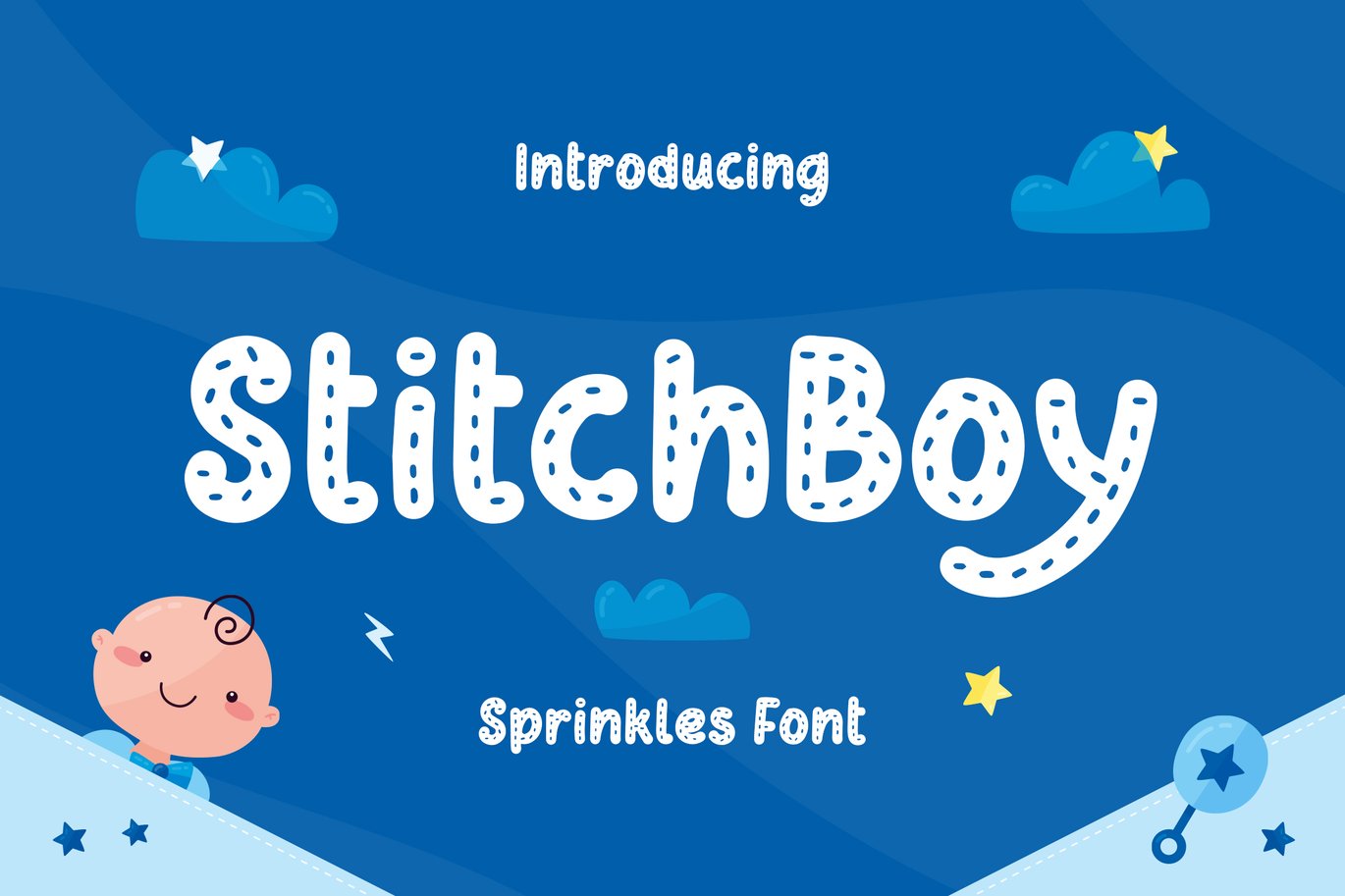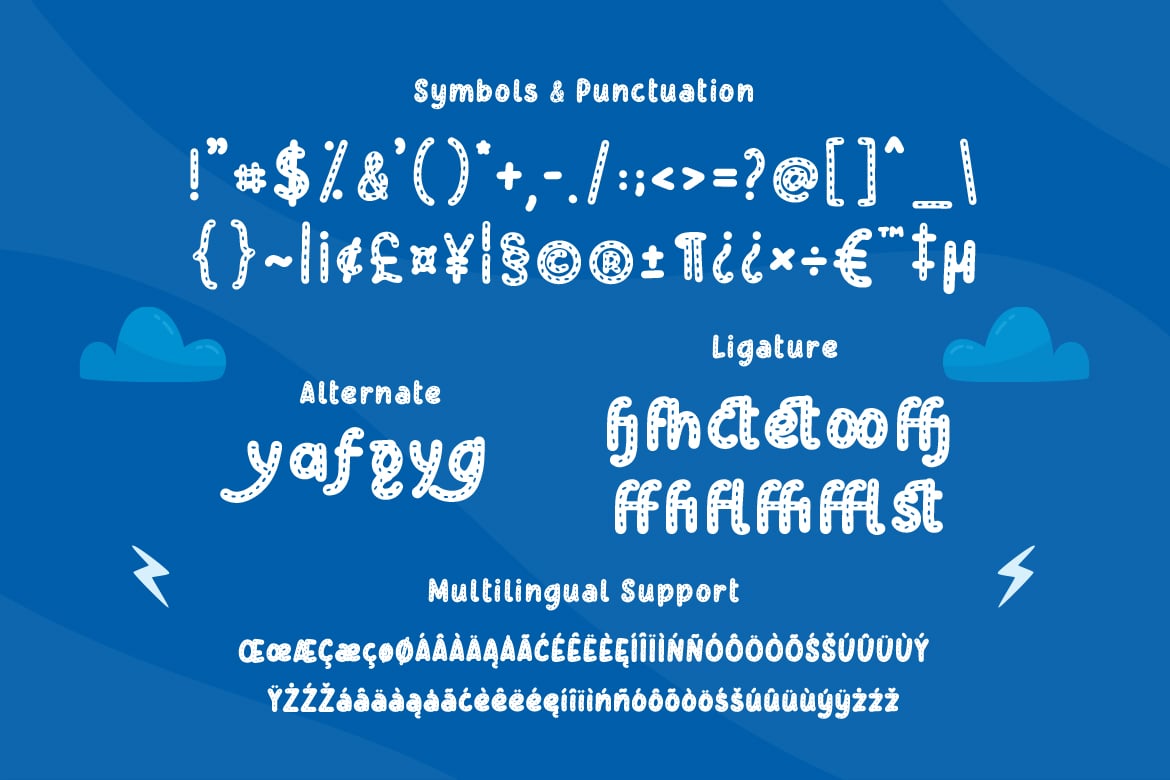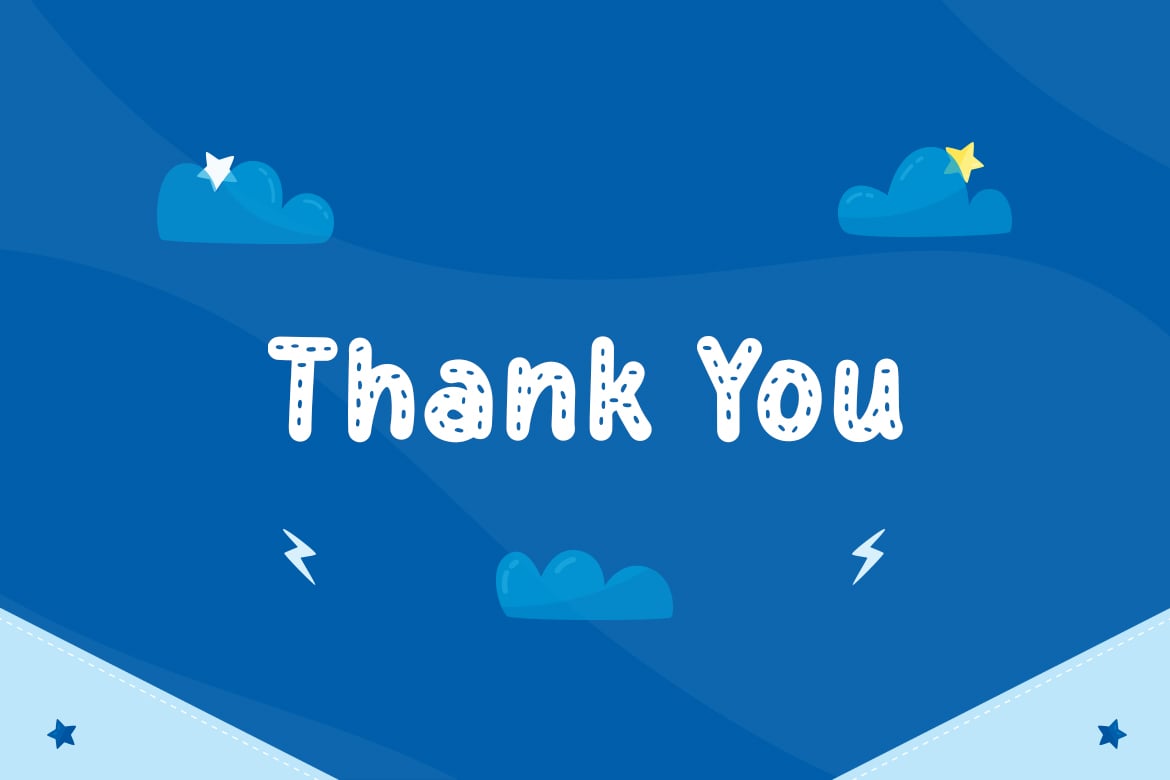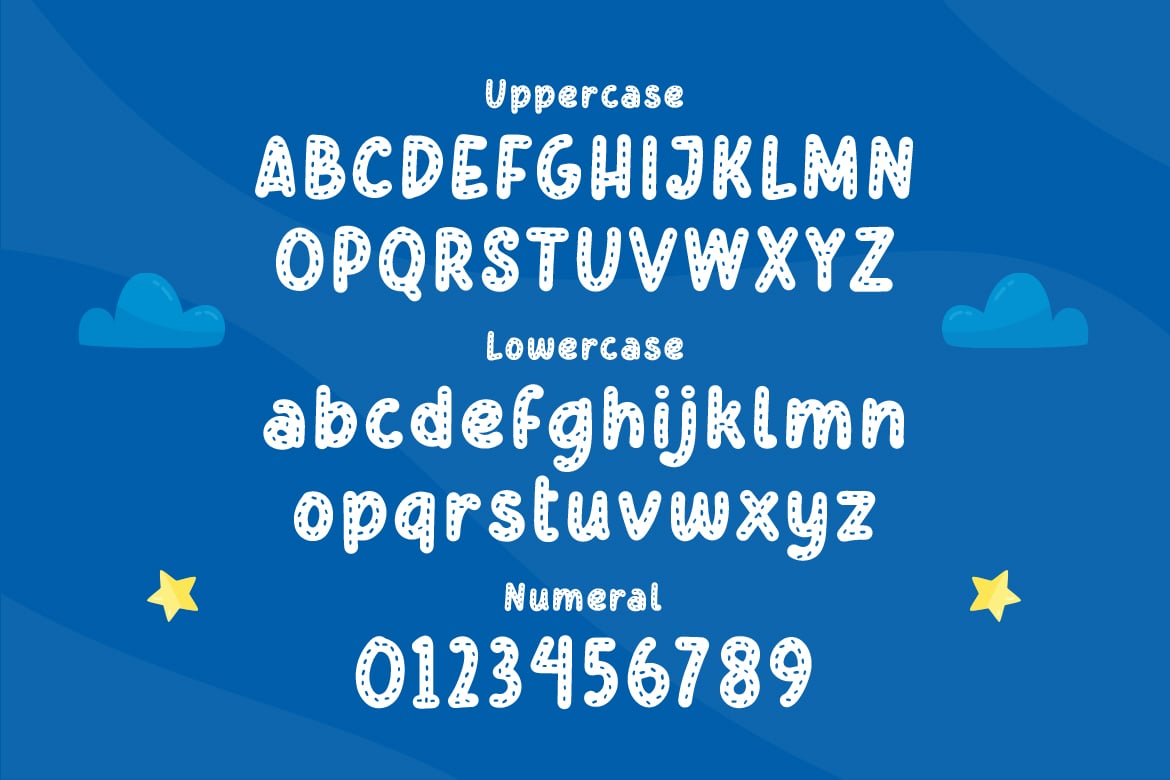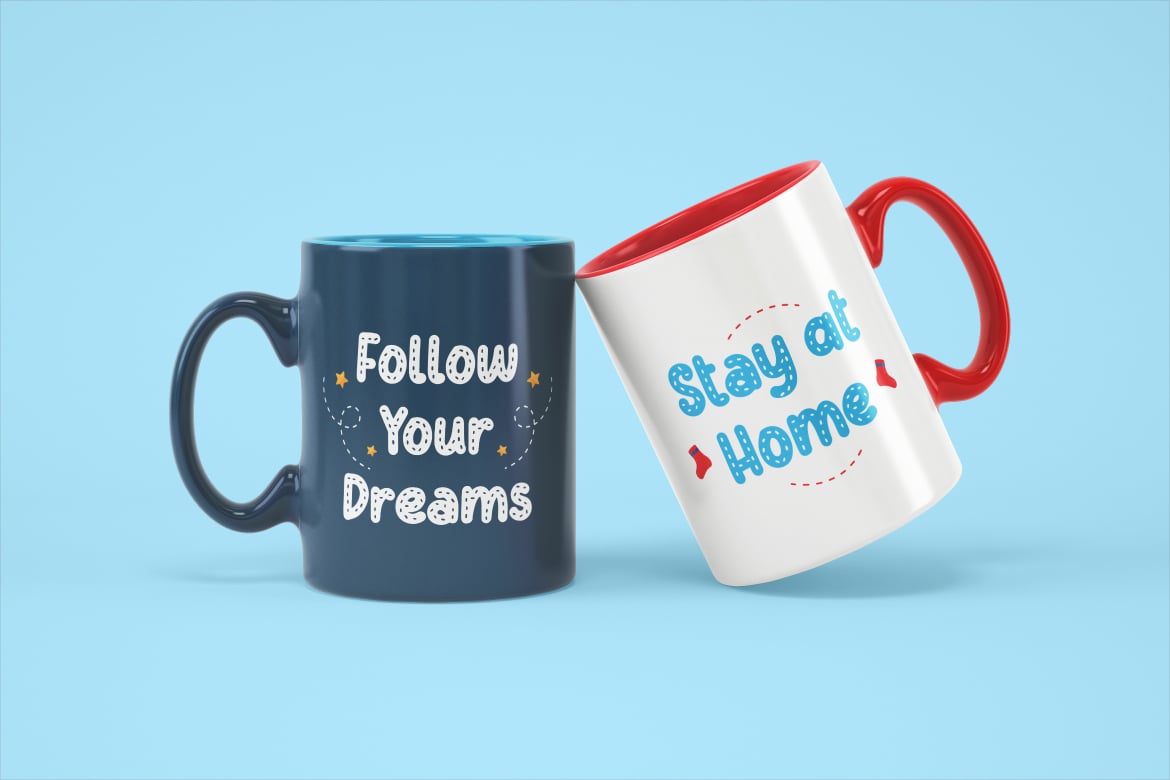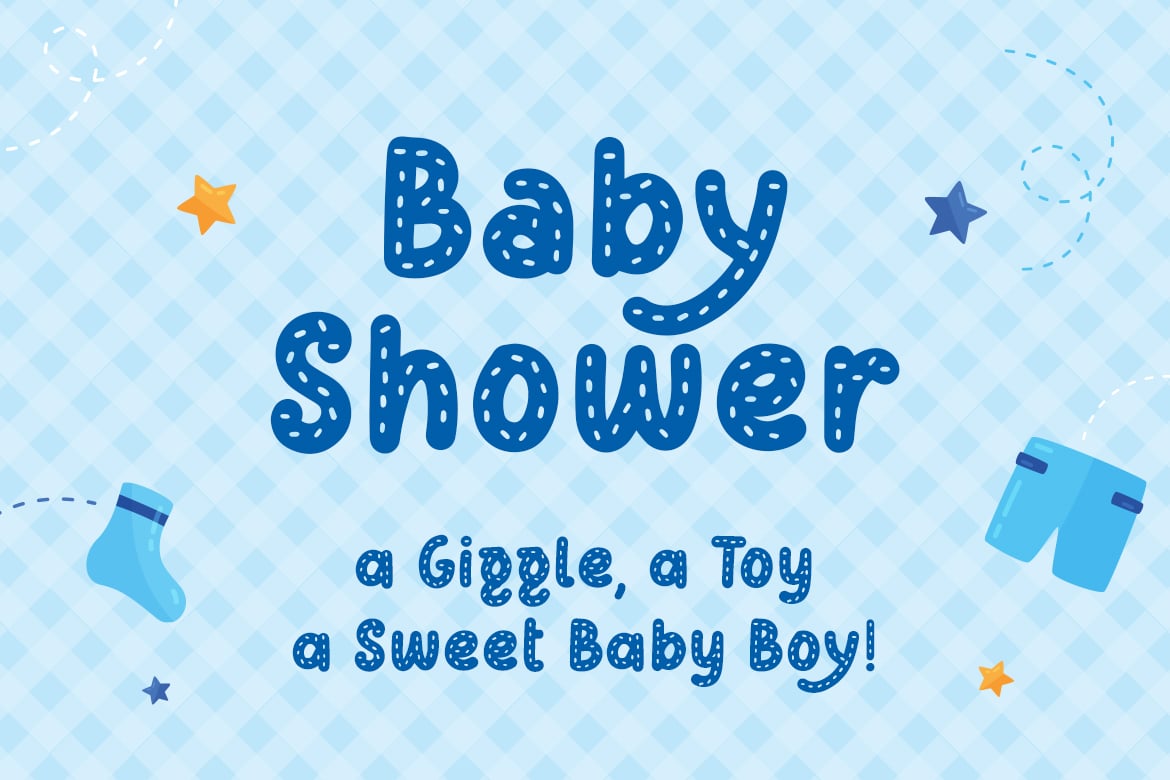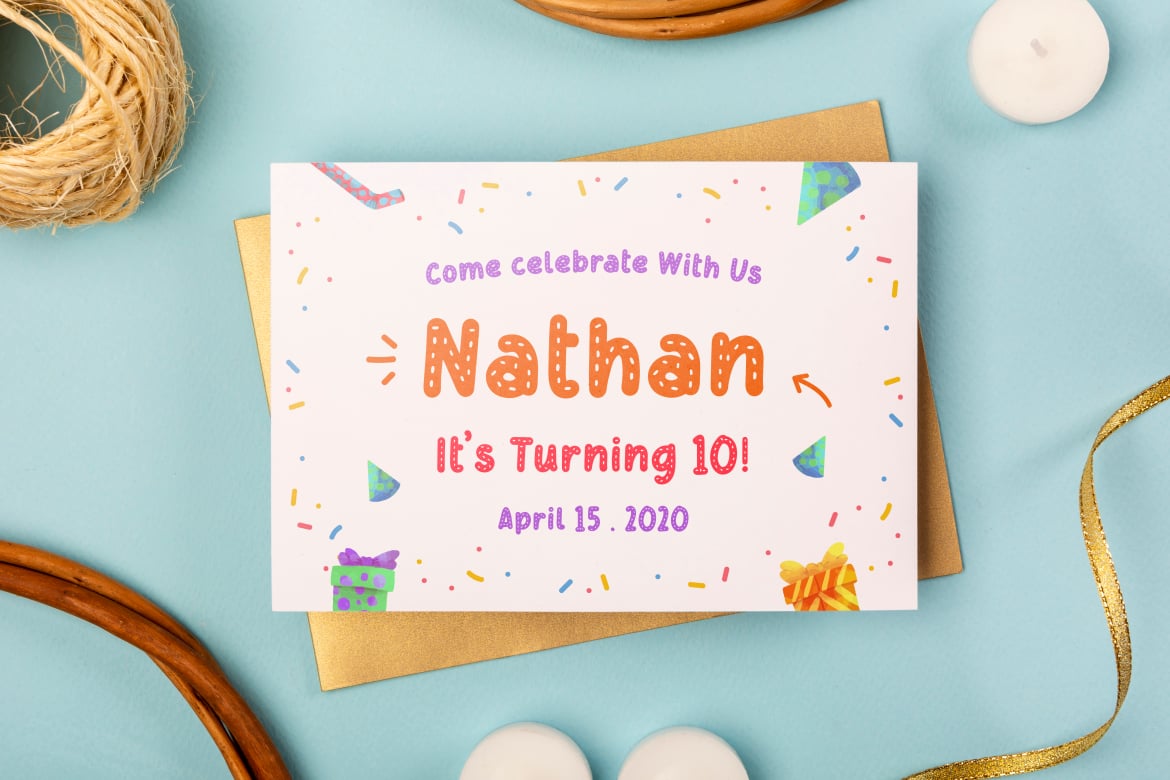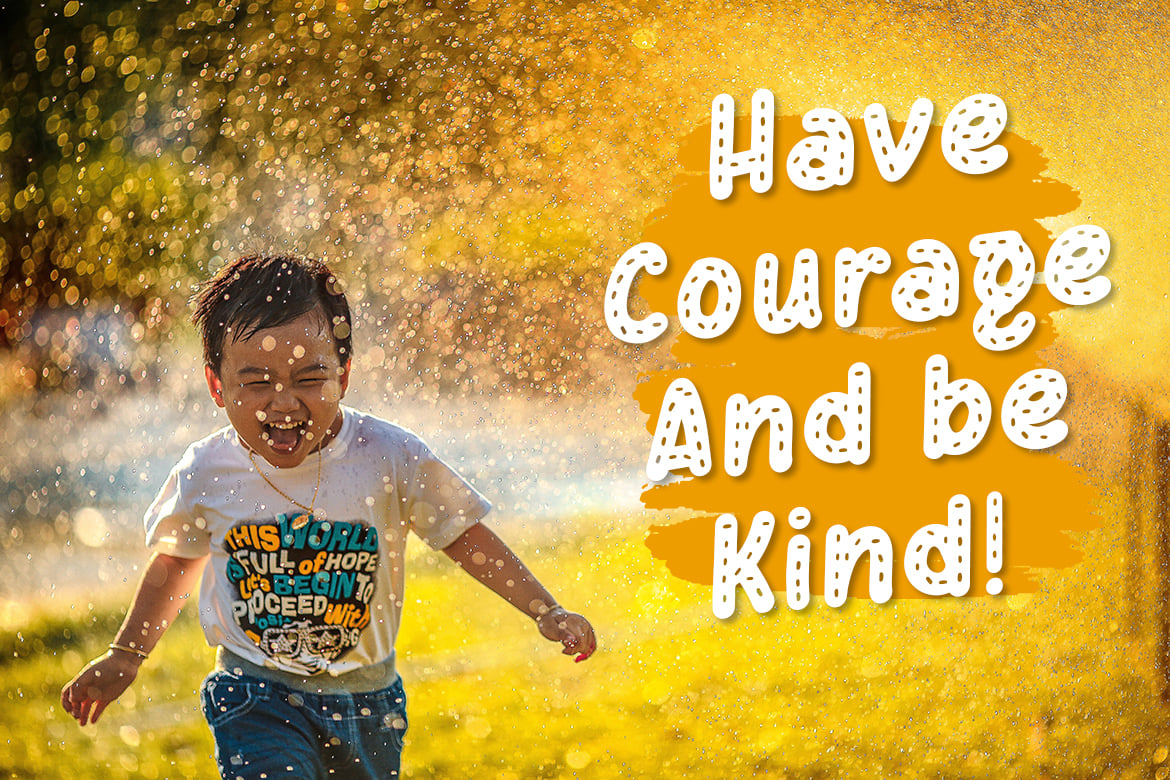
Stitch Boy – Sprinkles Font
Stitch Boy is sprinkles font.
This whimsical hand-crafted font sports sprinkles throughout.
Get inspired by its joyful look!